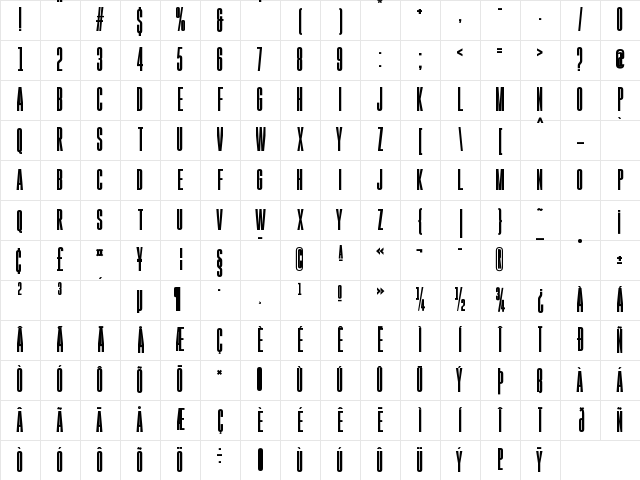
Gobold High Bold Regular
Designer: Situjuh Nazara
Design Context for Gobold High Bold
Gobold High Bold is a composed and adaptable typeface that performs quietly and consistently across a wide range of design contexts. Its bold stroke weight gives it real presence on the page.